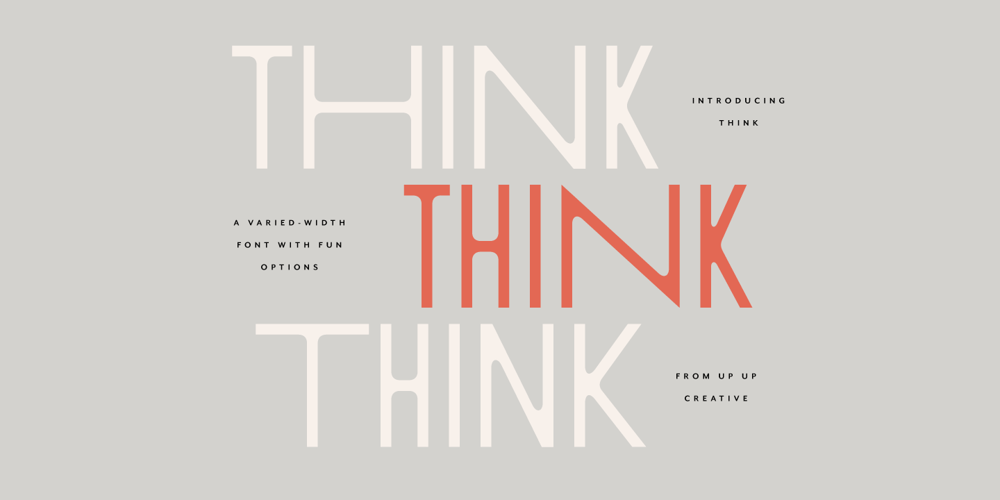
Think Font Family was designed by Julie Green and published by Up Up Creative. Think contains 1 styles and family package options. Meet Think, a varied-width sans serif font with fun options. At first glance, Think appears to be your standard all-caps mono weight sans. But if you look more closely, you’ll see that Think pairs wide and narrow characters to create a bold, eye-catching look that’s perfect for headlines, editorial design, monograms, branding, logos, poster design, and more.Think includes over 800 glyphs and uses 4 stylistic sets to give you lots of options in terms of the width of each letter. OpenType features include character variants, stylistic sets, and multilingual support (including multiple currency symbols). These features can be very easily accessed by using OpenType-savvy programs such as Adobe Illustrator and Adobe InDesign.